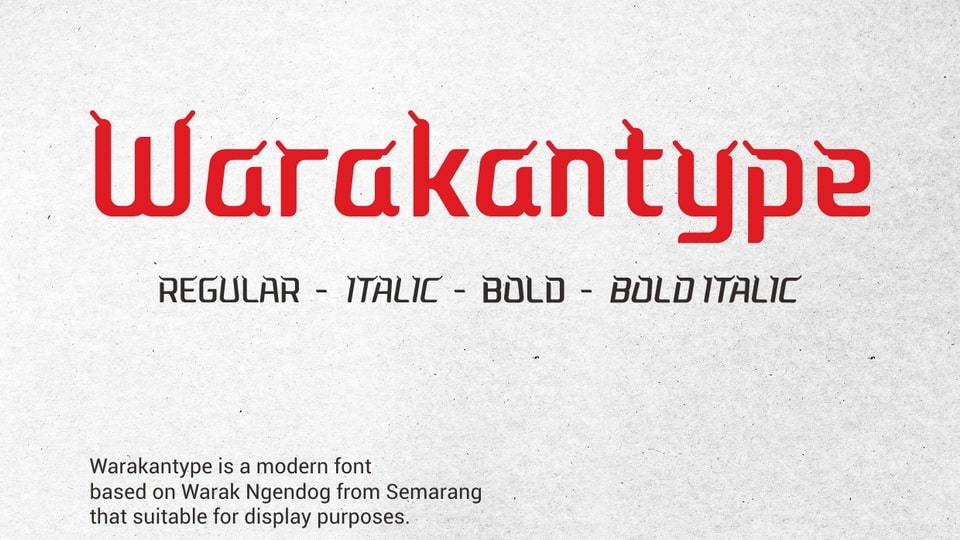
Download Warakantype font, a modern experimental typeface based on Warak Ngendog from Semarang City. This font is suitable for display purposes.
Designer: Yulianto Reynaldi